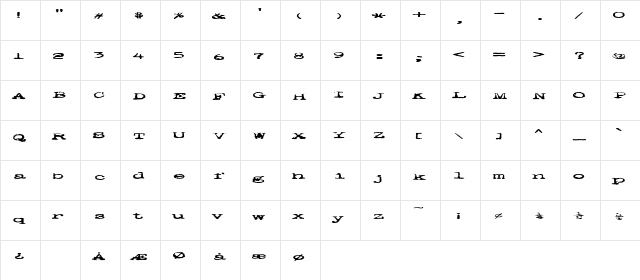
pookie lowdown blues Regular
Design Context for pookie lowdown blues Typeface
pookie lowdown blues takes a measured approach to typography — its balanced proportions and neutral character make it a reliable workhorse for both digital and print work.